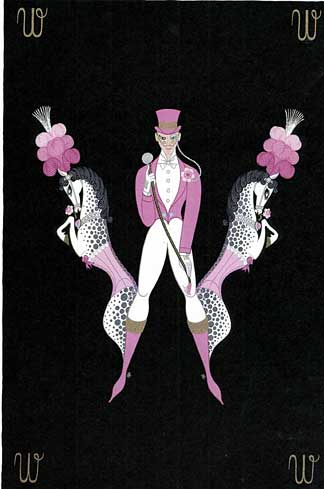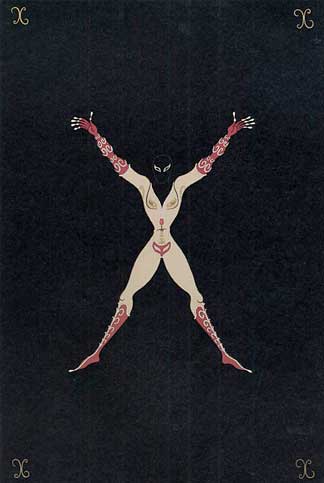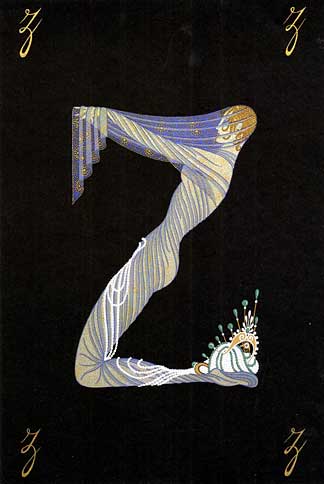
Erté |
Erté (Romain de Tirtoff) was a well-known art deco era artist. Born in St. Petersburg, Russia in 1892, he died in 1990 in Paris. In 1912, Erté moved to Paris. In 1915, he began an association with Harper's Bazaar by designing covers of each of their magazines for the next 22 years. He became known for elegant lithographs and sculptures for the fashion industry. On these pages, you find an elegant set of capitals and numerals in which the glyphs are formed by elegantly drawn naked women. |